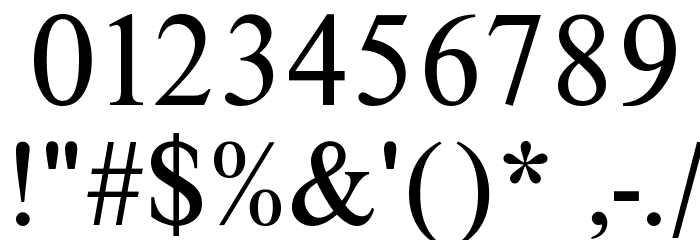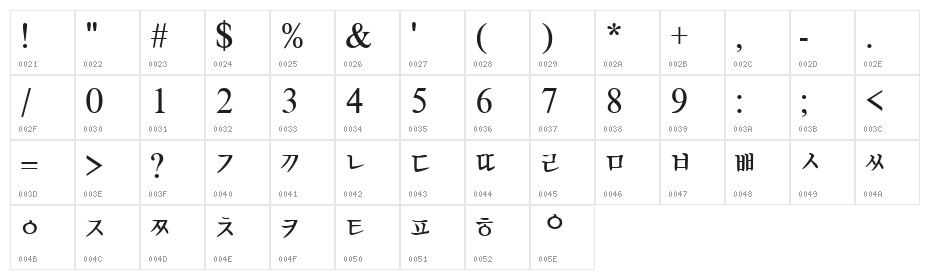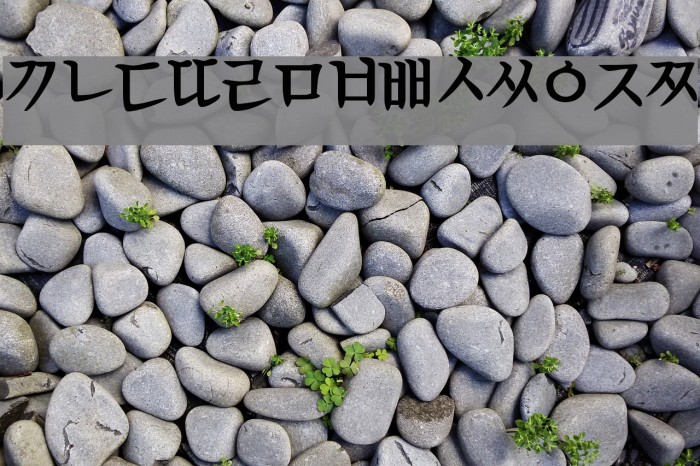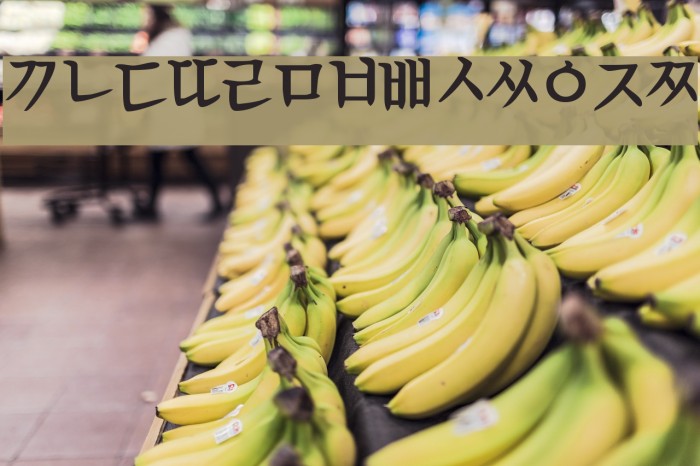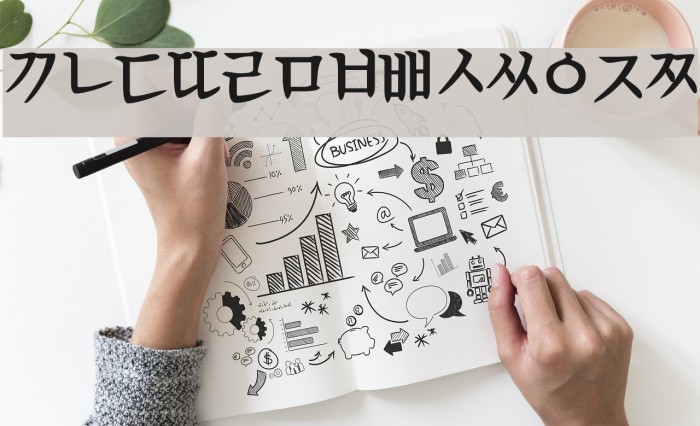
KoreanTimesSSK Font
KoreanTimesSSK Description
This font features a unique blend of traditional and modern elements, characterized by its elegant and flowing strokes. The characters exhibit a calligraphic style, with a harmonious balance between thick and thin lines, giving it a dynamic and sophisticated appearance. The numerals are clear and distinct, maintaining the overall aesthetic of the font. Special characters are designed with a similar attention to detail, ensuring consistency across all glyphs. This font is suitable for projects that require a touch of elegance and cultural flair.
Overall StyleClassic
Use CaseLogos, Invitations, Artistic designs
Proposed ProjectsIdeal for branding, invitations, cultural projects, and artistic designs.